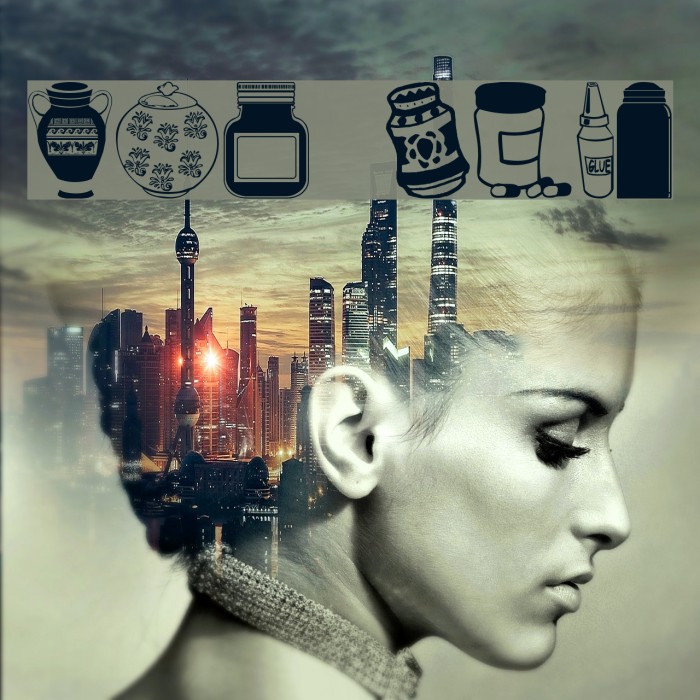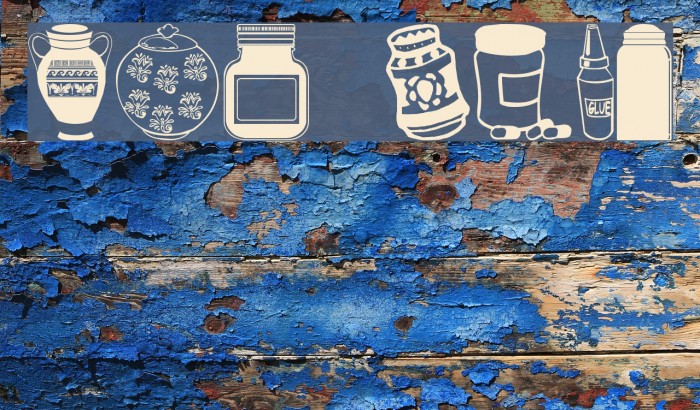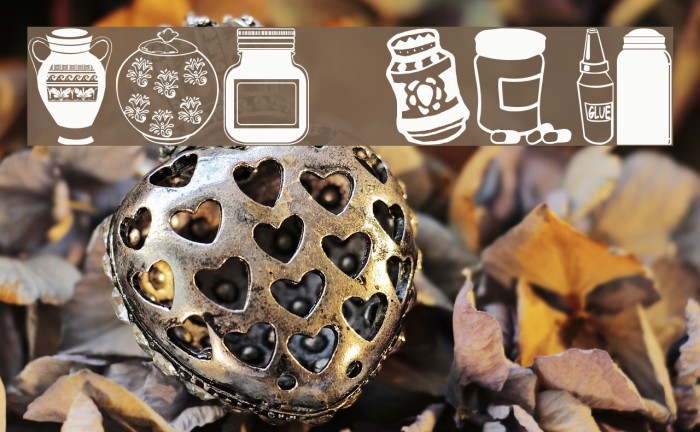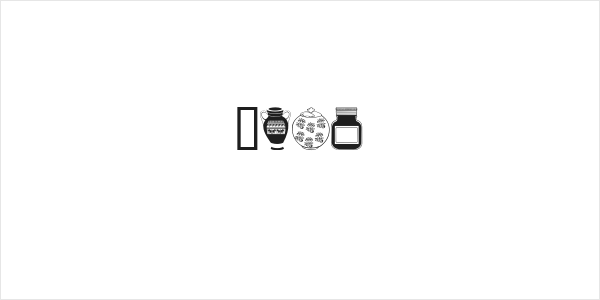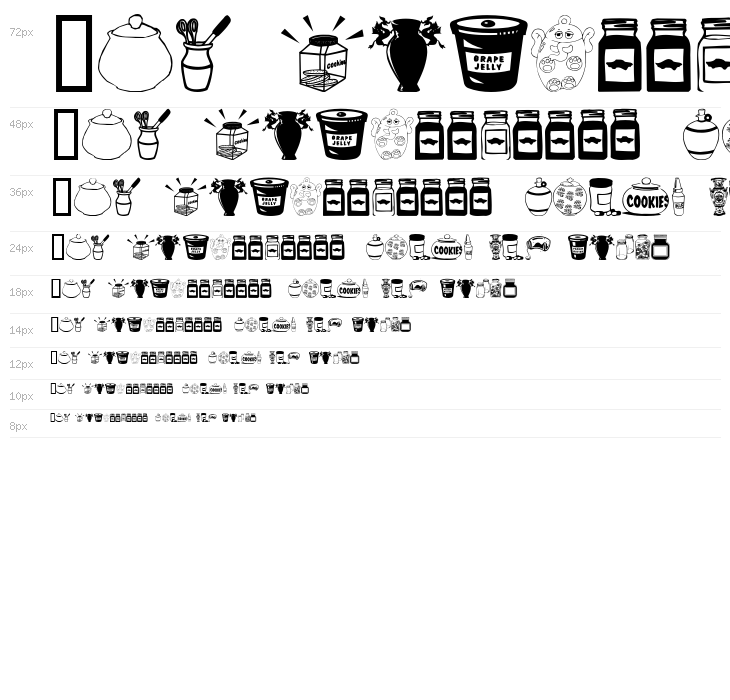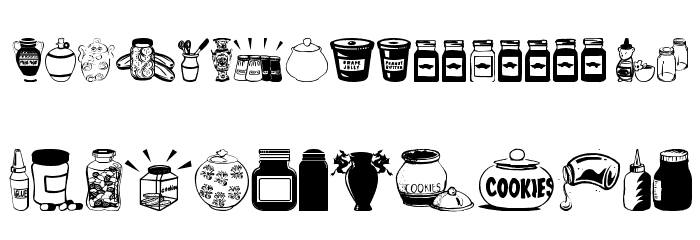
Jars Font
Jars Description
A decorative display font featuring hand-drawn illustrations of various jars, bottles, and containers in place of standard alphanumeric characters and symbols. Each glyph is a unique, detailed sketch of a different jar or related object, giving the font a playful and whimsical appearance.
Overall StyleWhimsical, Playful, Decorative
Use CaseLogos, Headlines, Themed posters, Labels
Proposed ProjectsChildren's book titles, recipe cards, food packaging, craft labels, playful branding, event invitations.